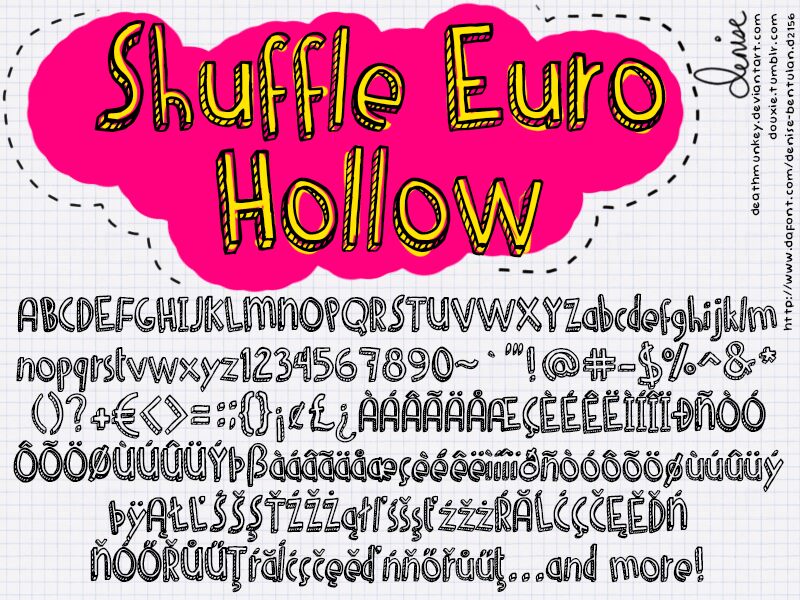
Denne Shuffle Euro Hollow by Denise Bentulan is a free cartoon 3D display font with tall, loosely drawn letters and open interiors. Uneven outlines give the forms a lively, improvised shape. Striped shading runs along selected inner edges, producing the look of hand-sketched depth rather than a smooth digital extrusion.
Children's book covers are an apt setting for this lettering, with party posters, snack packaging, and comic graphics offering similarly playful contexts. Its doodled construction will speak most directly to younger audiences and designers building cheerful, informal entertainment brands.